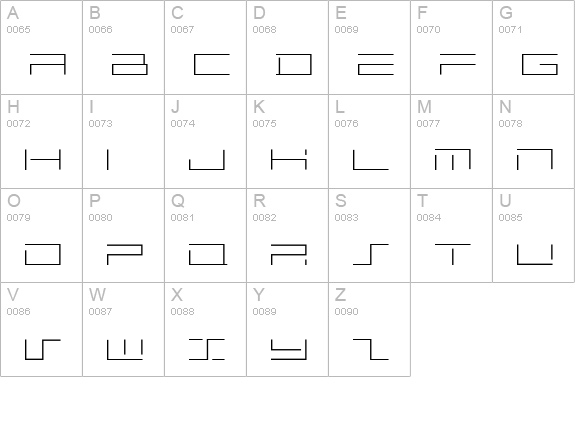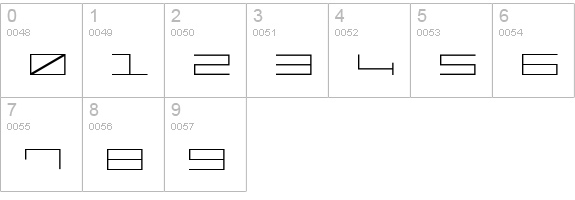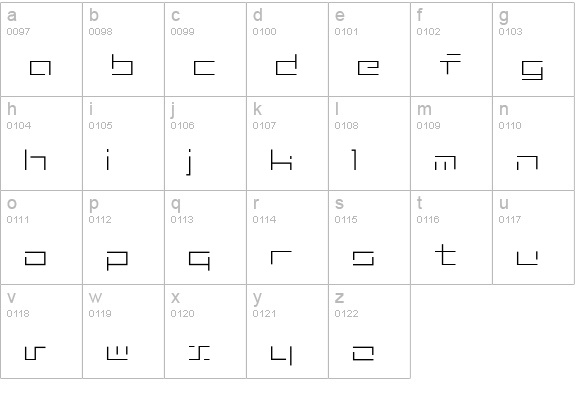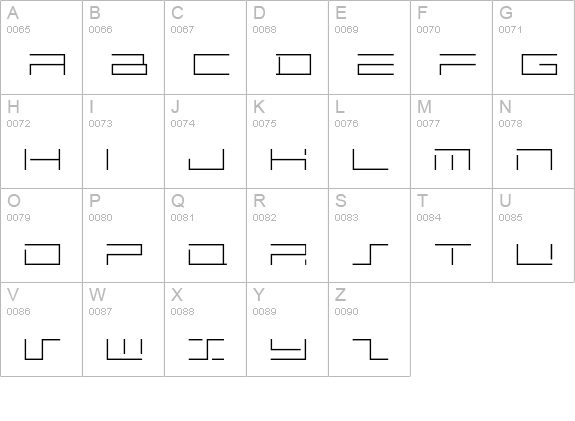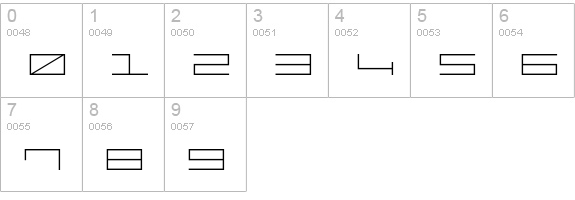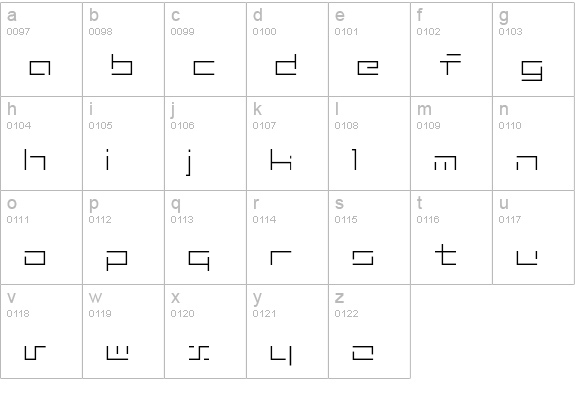
MINIMALHARD2 Font Details
MINIMALHARD2 font is a sleek and modern typeface that exudes simplicity and elegance. With its clean lines and sharp edges, this font is perfect for adding a contemporary touch to any design project. The geometric shapes and minimalist design of MINIMALHARD2 make it versatile and easy to read, making it suitable for a wide range of applications. This font is available for free download at FontsMarket.com, allowing designers and creatives to access this stylish typeface at no cost. Whether you're working on a branding project, website design, or any other creative endeavor, MINIMALHARD2 font is a great choice for achieving a polished and professional look. Download it today and elevate your designs with this stylish and modern typeface.